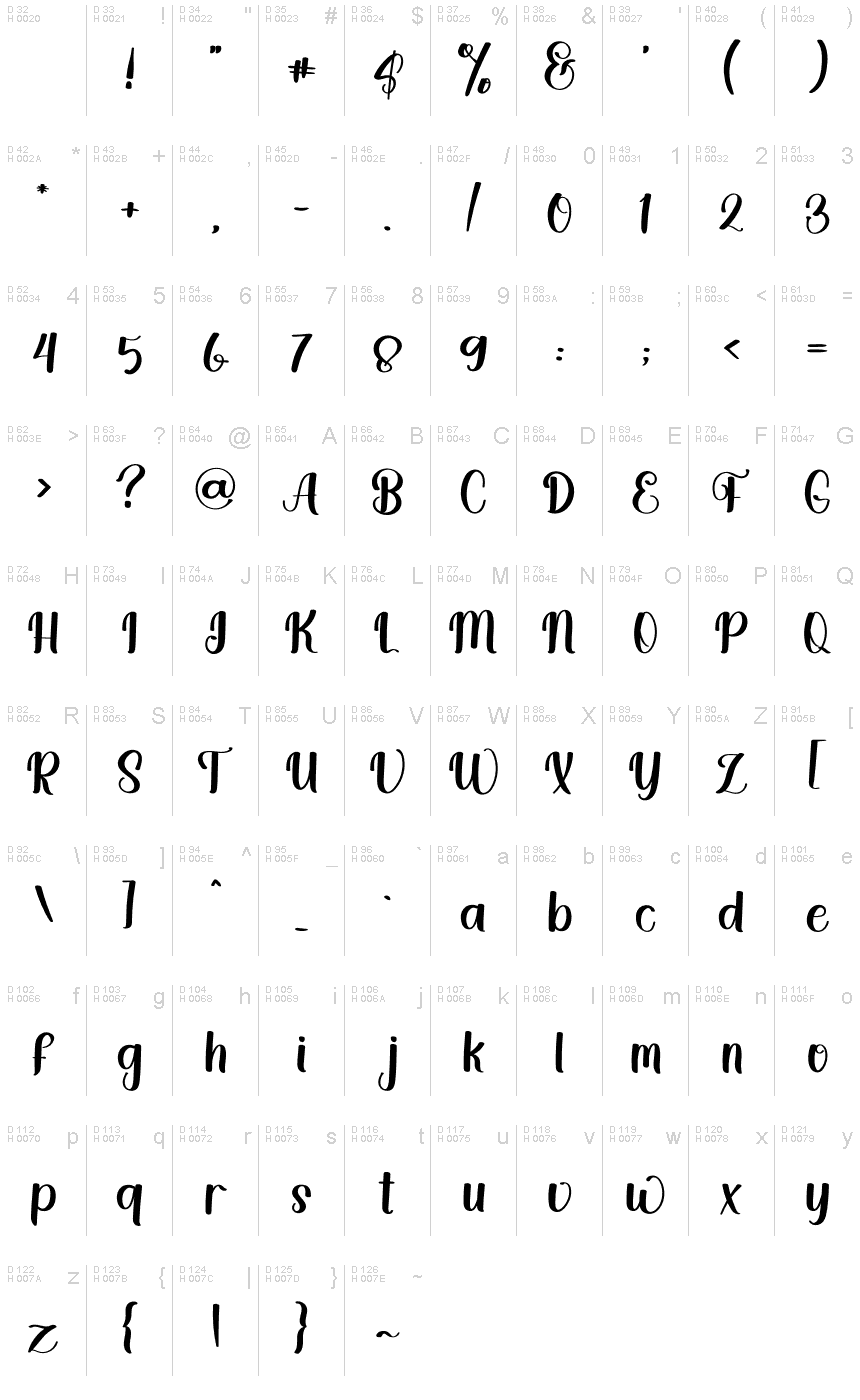
Snowwhite
Snowwhite, the beautiful handwritten font designed by FreshtypeINK, will add a touch of elegance and sophistication to any project. Its unique style is perfect for invitations, wedding stationery, and fashion branding. The semi-bold font provides a modern edge while the delicate strokes add a feminine touch. Whether you're creating social media graphics or designing logos, Snowwhite is versatile enough to suit any project. This font is sure to captivate your audience and make your message stand out. Experience the magic of Snowwhite today!